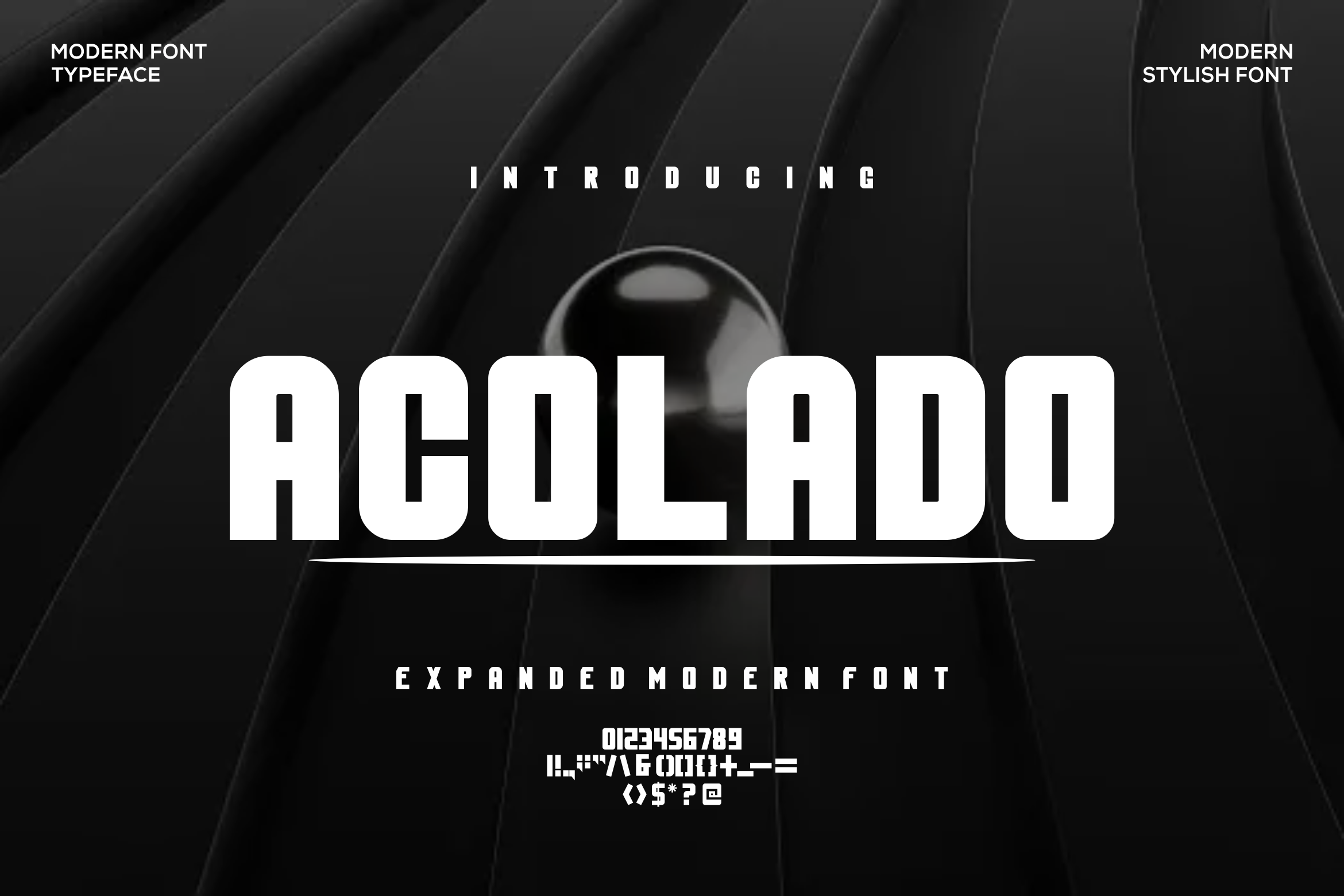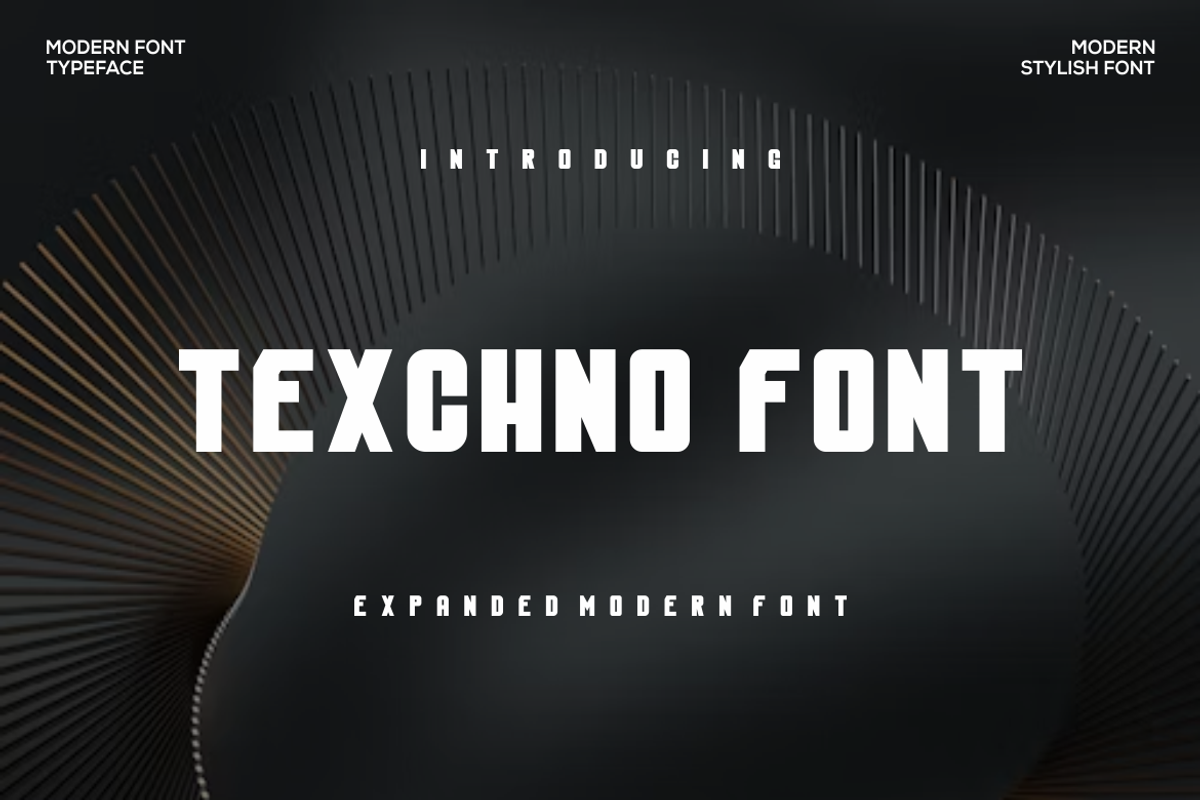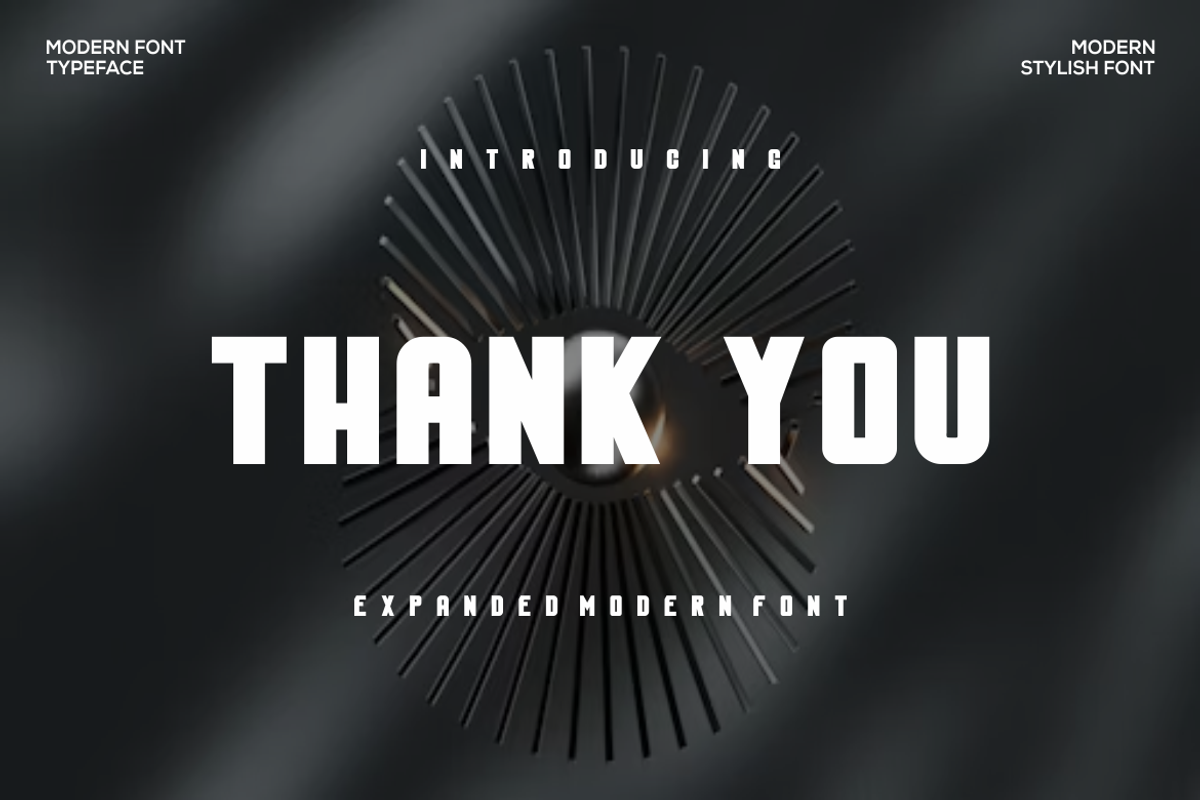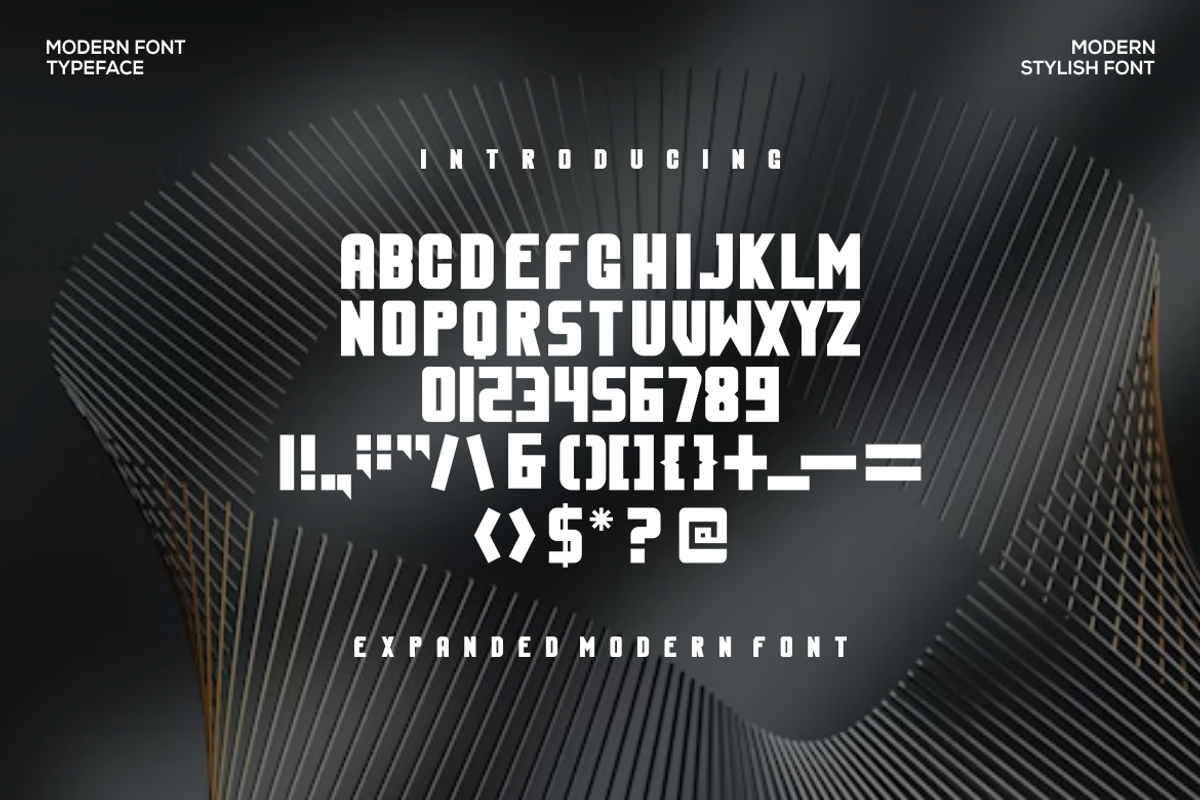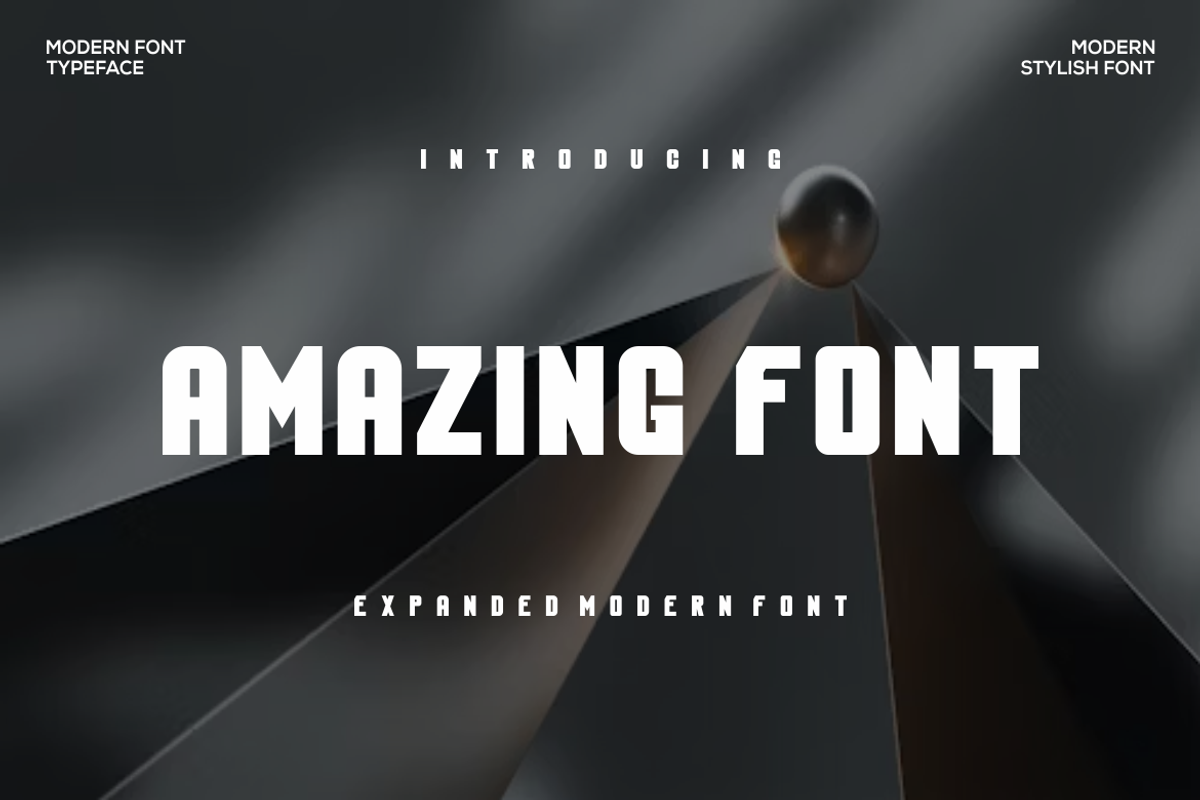
Acolado Font
Presenting our new product Acoladoi Font - Modern Font Acolado Font - Modern Font is a bold and authentic display font. This font is perfect for any branding project such as logos, t-shirt printing, creative products, and more. extraordinary in a variety of contexts.